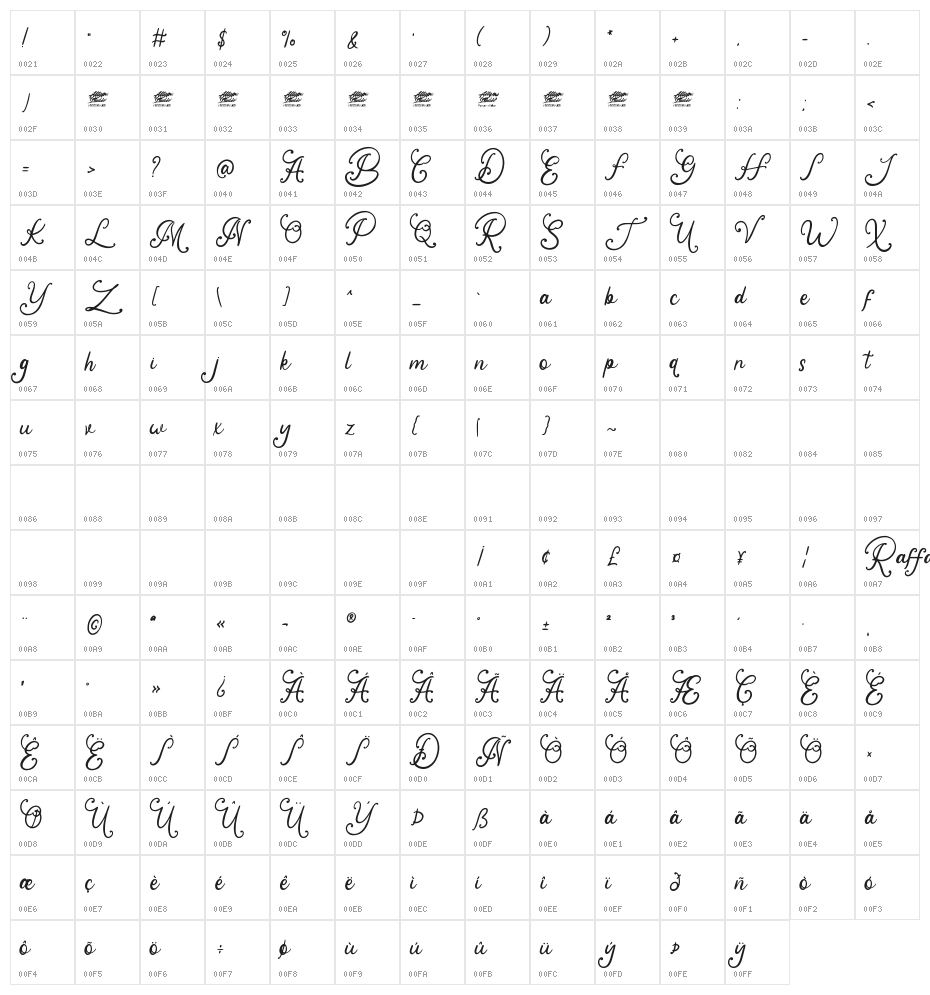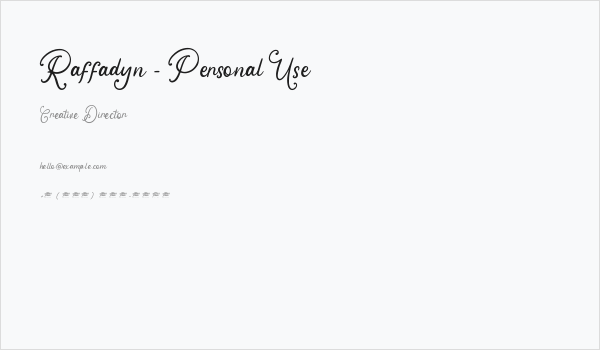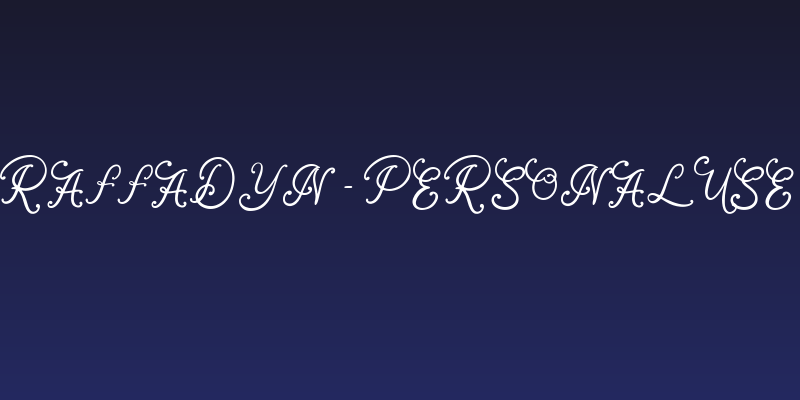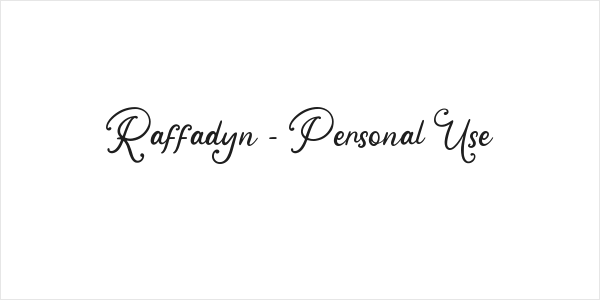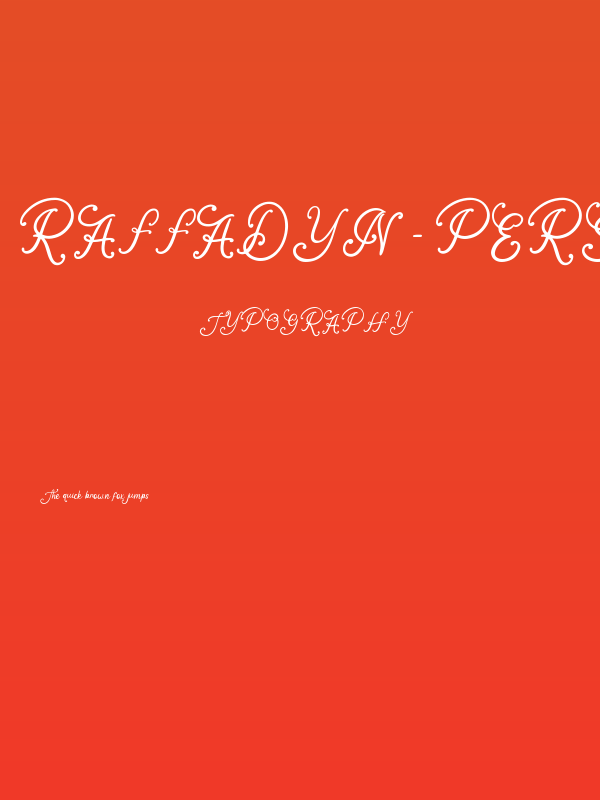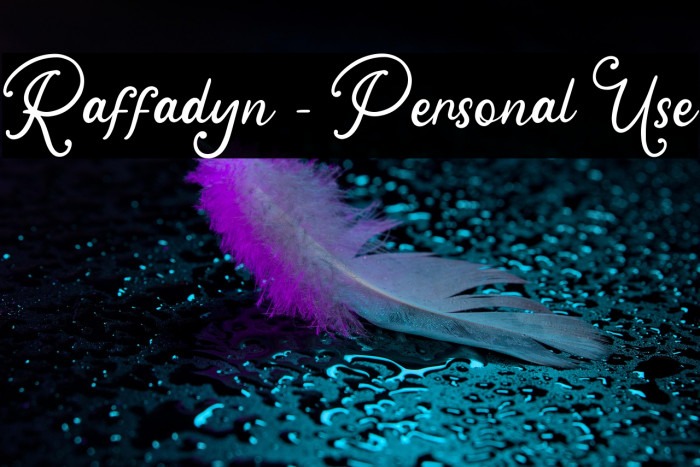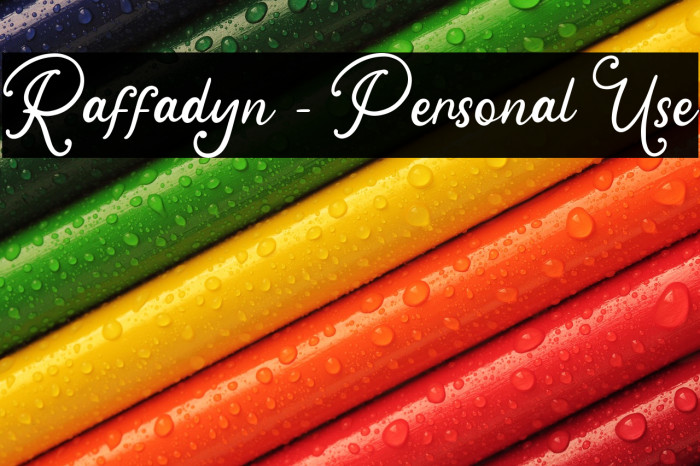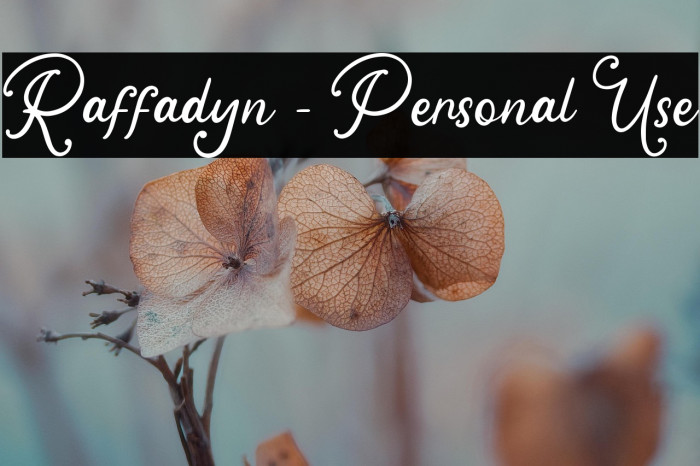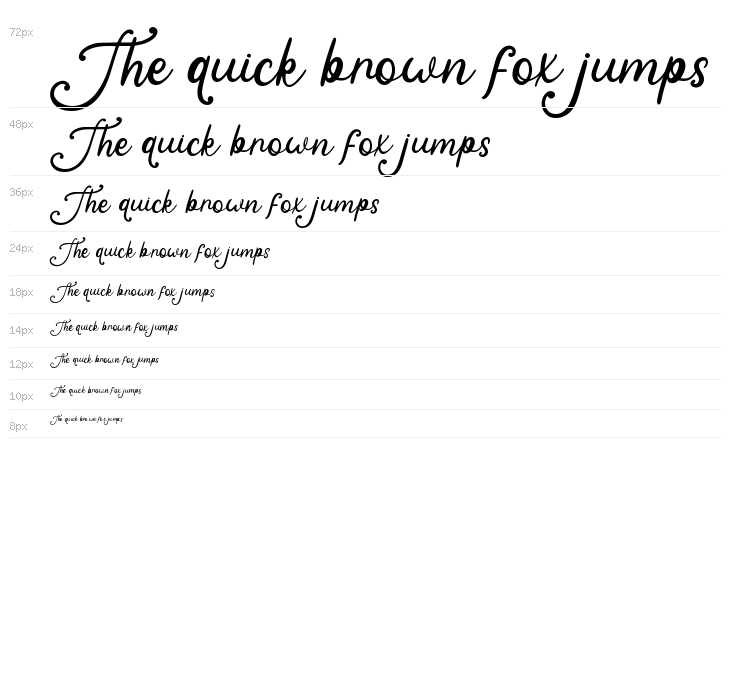
Raffadyn - Personal Use Font
Raffadyn - Personal Use Description
This font exhibits a flowing, elegant script style with a touch of whimsy. The uppercase letters are adorned with intricate loops and swirls, giving them a decorative flair. The lowercase letters maintain a smooth, cursive form that complements the uppercase, creating a cohesive and stylish appearance. The characters are well-spaced, allowing for readability while maintaining their artistic charm. The numbers and special characters follow the same ornate style, ensuring consistency across all elements. This font is perfect for projects that require a personal, handcrafted feel.